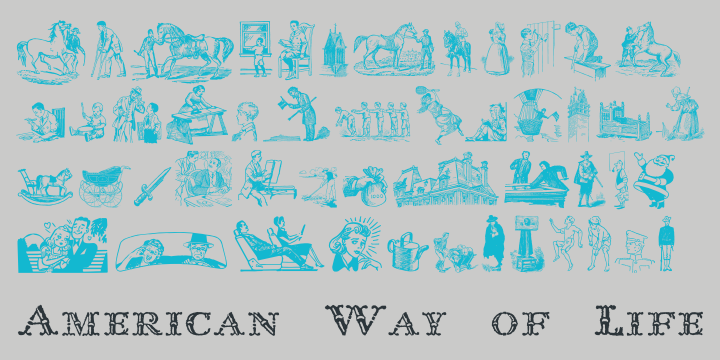
American Way Of Life
Designed by Paulo W, American Way Of Life is a historical and dingbat font family published by Intellecta Design.
A misx of dingbats from many periods of the life in America